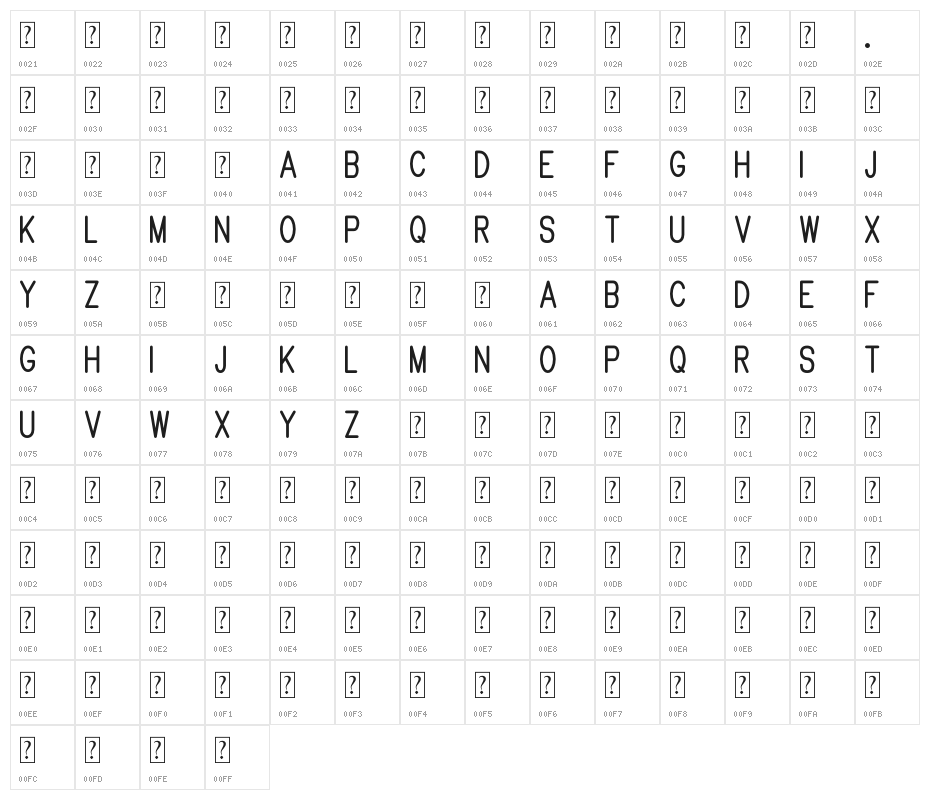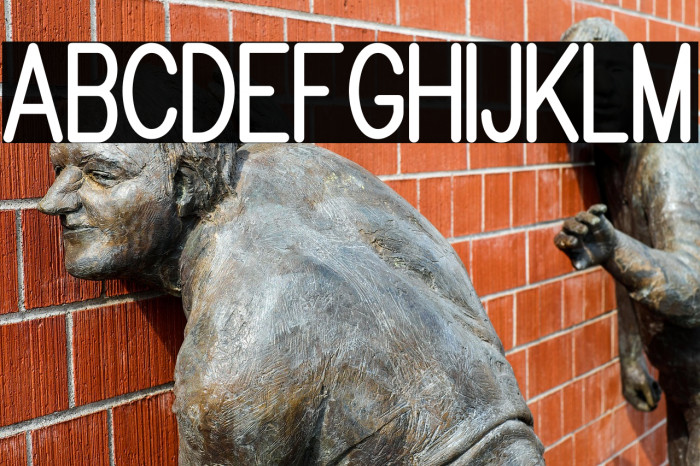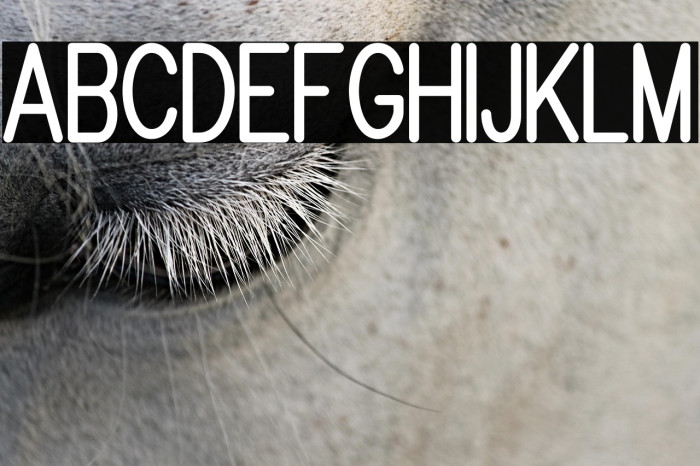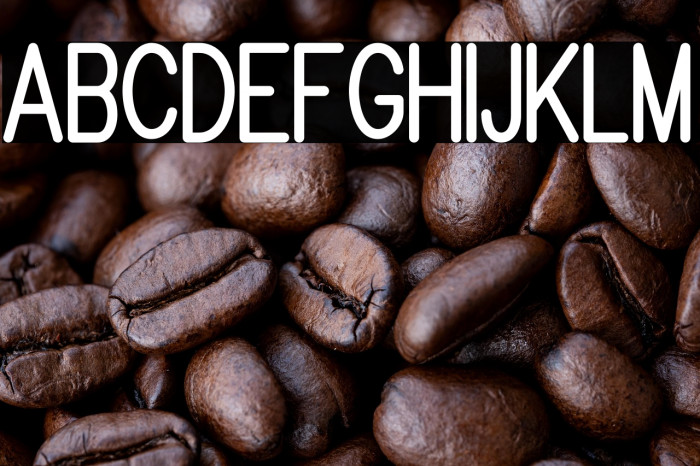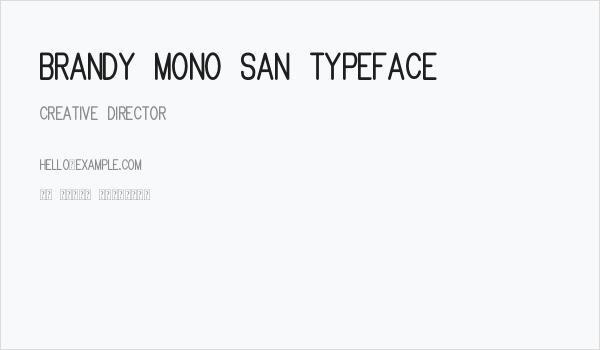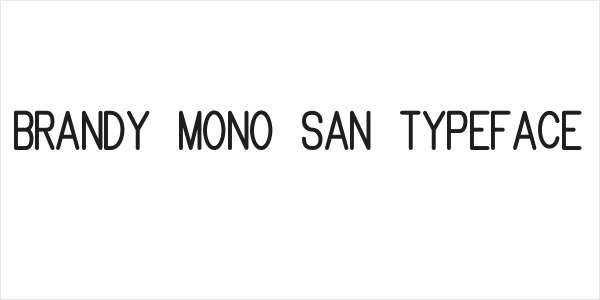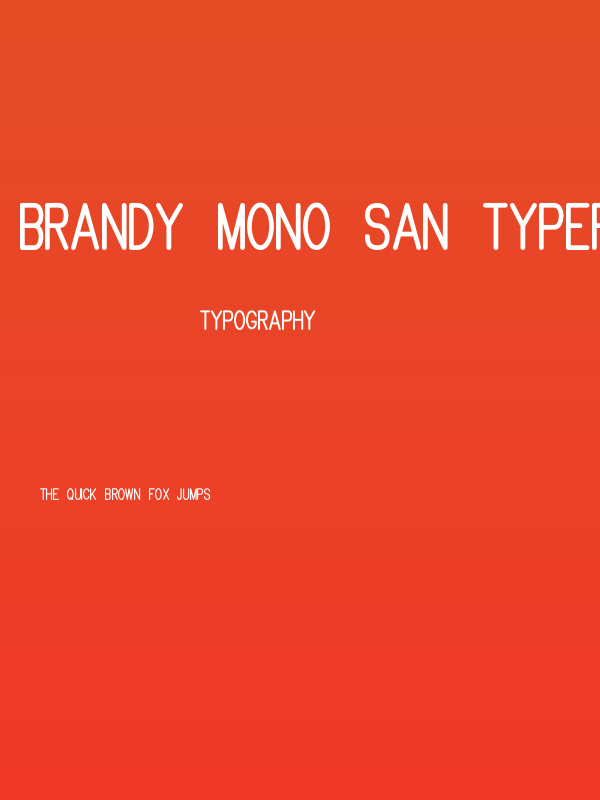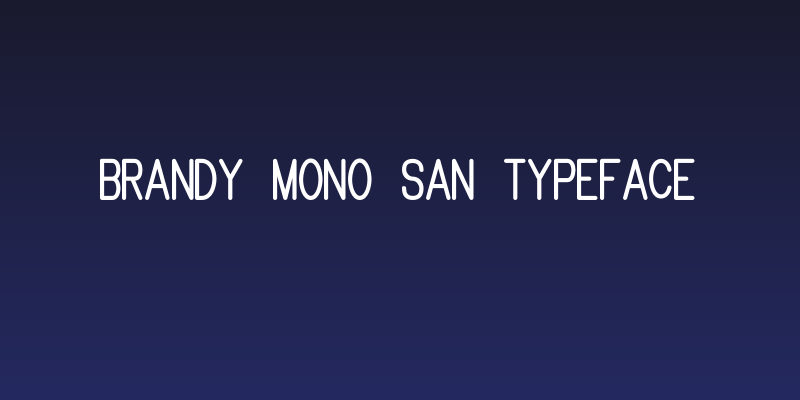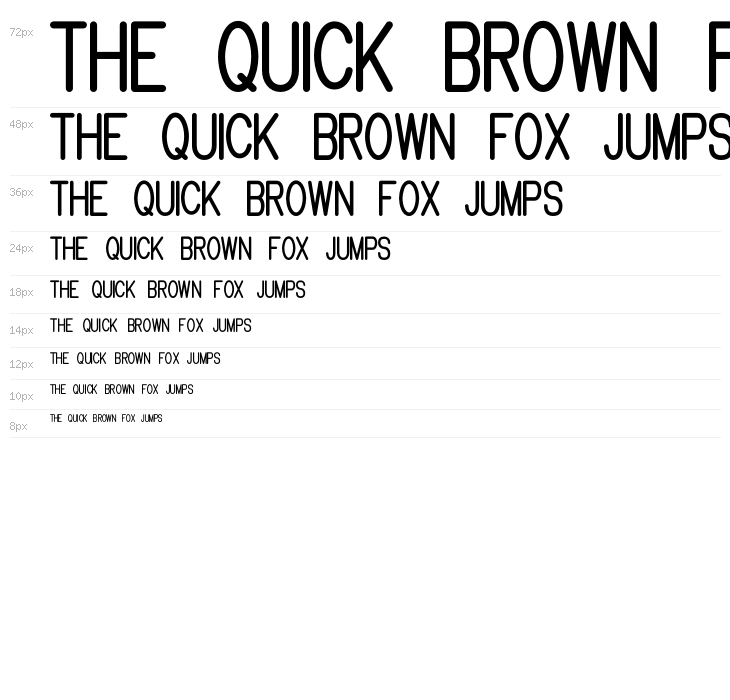
Brandy mono san typeface Font
Brandy mono san typeface Description
This typeface features a clean and modern design with a monospaced structure, offering uniformity and precision. The characters are evenly spaced, providing a balanced and orderly appearance. The uppercase letters are bold and prominent, while the lowercase letters maintain a consistent height, enhancing readability. The font's geometric shapes and smooth curves contribute to its contemporary style, making it suitable for digital and print media. The absence of serifs gives it a sleek and uncluttered look, ideal for minimalist designs.
| Use Case | Coding, Technical Documentation, Minimalist Design |
| Proposed Projects | Ideal for coding environments, technical documentation, and minimalist graphic design projects. |